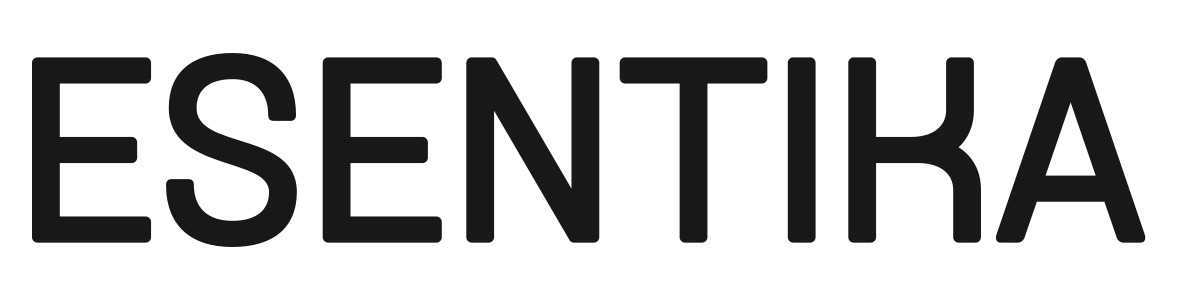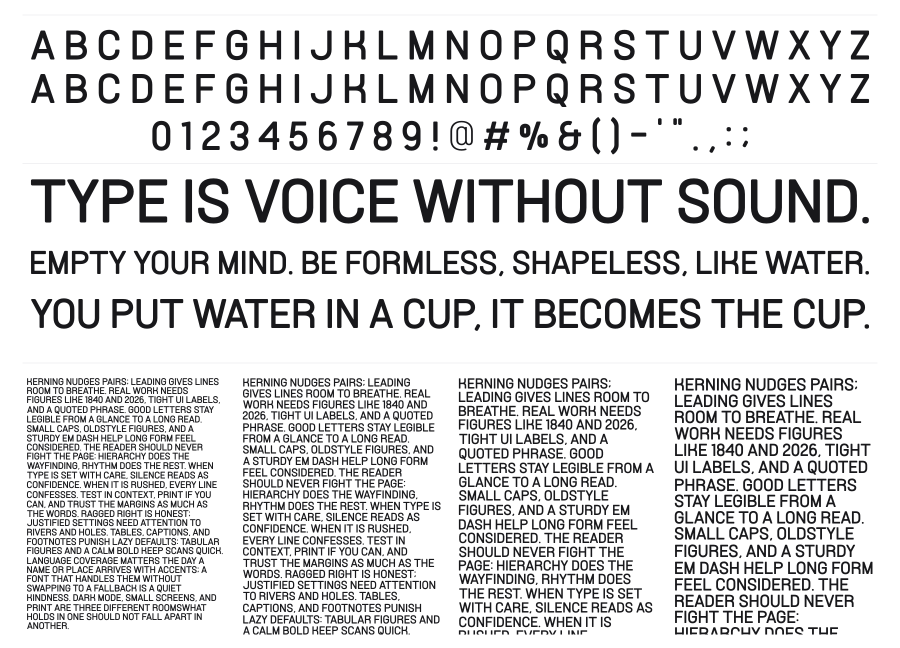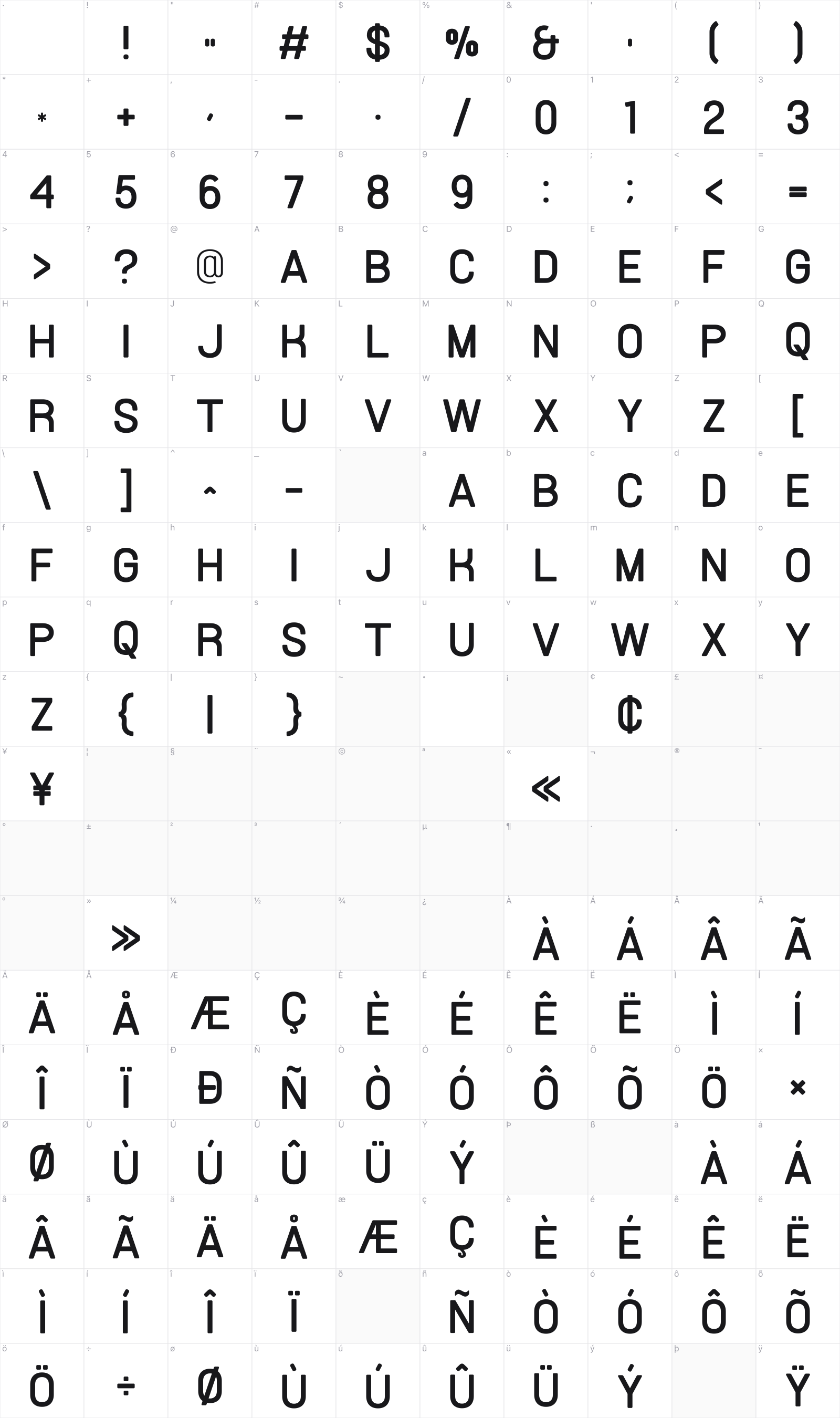
Esentika
Esentika is a clean grotesque sans-serif with wide proportions and near-monoweight strokes inspired by mid-century Swiss typography. It carries the neutral, dependable tone of classic neo-grotesques like Helvetica, making it a versatile workhorse for branding, headlines, and editorial layouts. Simple, unfussy, and quietly confident.